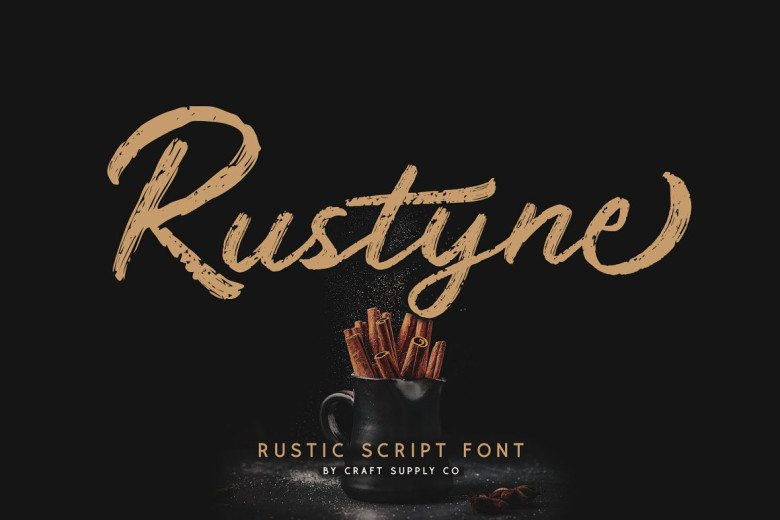
Rustyne Font
Rustyne – Rustic Brush Script Font is an handwritten script font based on the expression of real handwriting. Rustyne – will work perfectly for fashion brands, e-commerce sites, trend blogs, wedding boutiques or any business that wants to appear upscale and chic.
Rustyne Brush Script Font